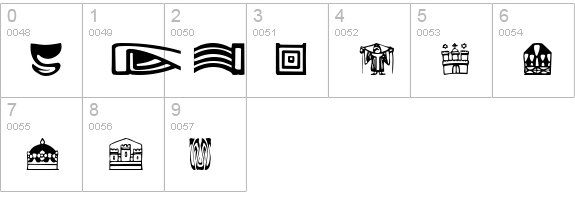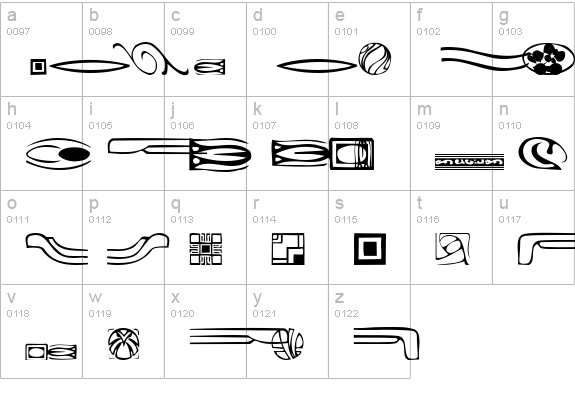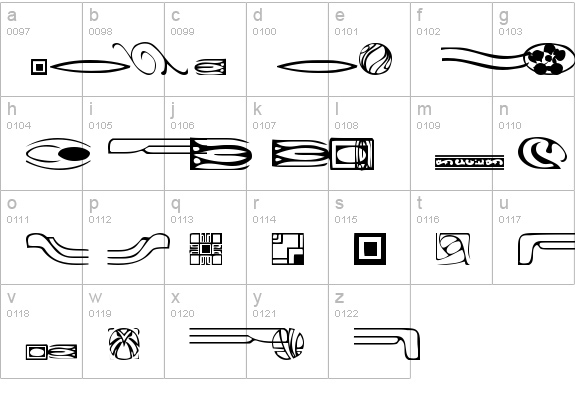
Griffin One Dingbats font is a whimsical and charming typeface that is perfect for adding decorative elements to your designs. This unique font features a variety of fun and quirky dingbat characters that can be used to enhance your projects and make them stand out. The Griffin One Dingbats font is not only versatile and eye-catching, but it is also free to download. This means that you can add a touch of fun and creativity to your designs without having to spend a dime. Simply head over to FontsMarket.com to freely download the Griffin One Dingbats font and start incorporating its delightful characters into your projects today. Whether you're looking to add a playful touch to your invitations, social media posts, or branding materials, the Griffin One Dingbats font is sure to bring a smile to your audience's faces. So why wait? Download this charming font for free and let your creativity shine!